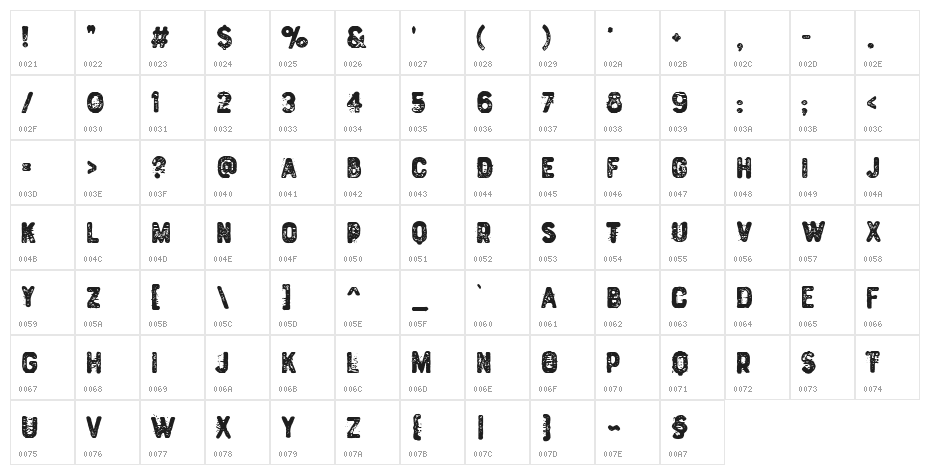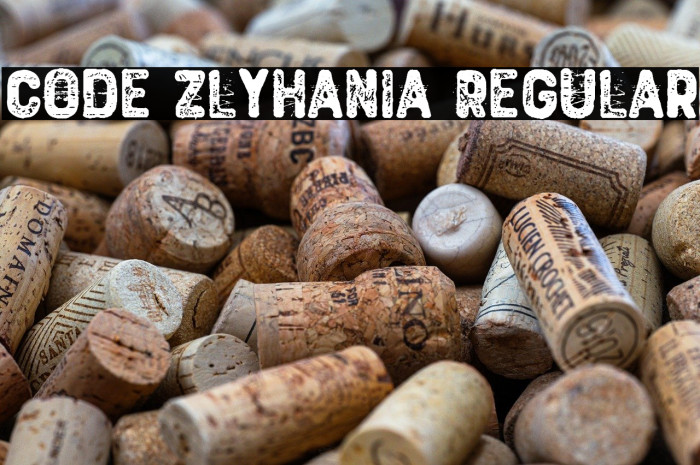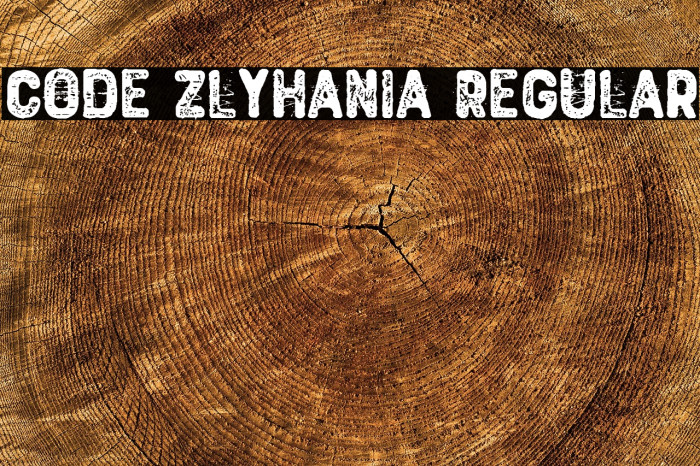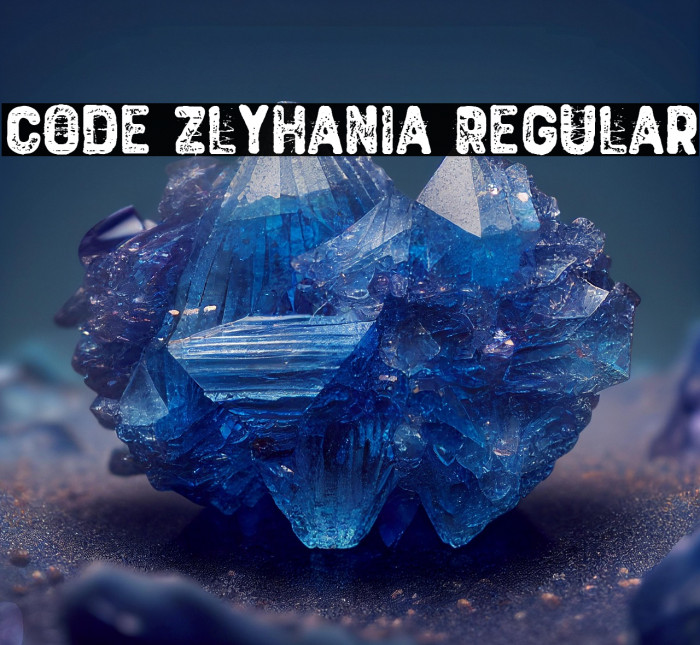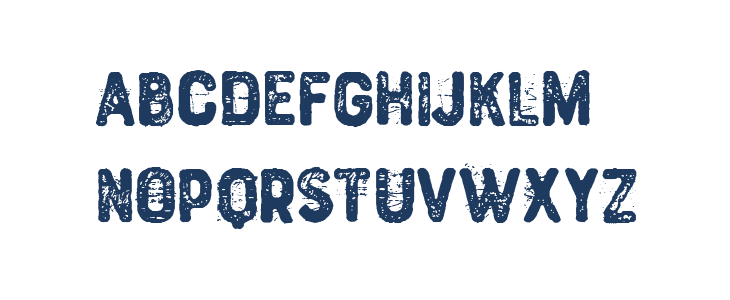
Code Zlyhania Regular Font
Code Zlyhania Regular Description
This font features a bold, distressed style with a textured appearance that gives it a rugged, worn-out look. Each character is heavily stylized with irregular edges and a grunge effect, making it ideal for projects that require a vintage or industrial aesthetic. The uppercase and lowercase letters maintain a consistent design, with numbers and special characters following the same theme. The font's boldness and unique texture make it stand out, adding a dramatic flair to any design. Its rough, imperfect lines suggest a hand-crafted feel, perfect for creating eye-catching headlines or artistic logos.
| Overall Style | Vintage |
| Proposed Projects | Ideal for vintage posters, album covers, branding for outdoor or adventure-themed products, and artistic logos. |